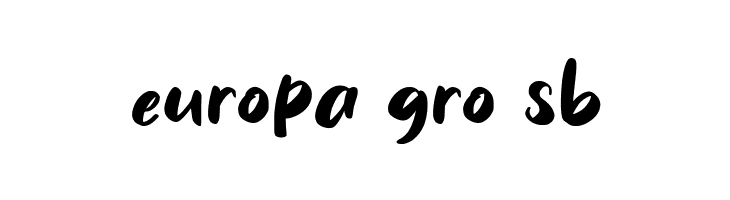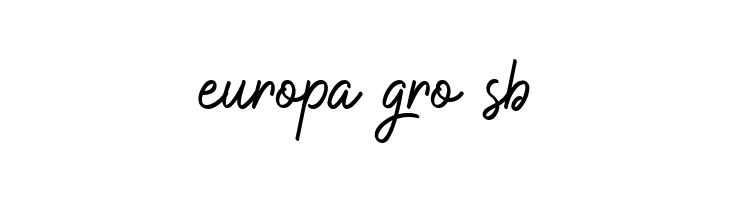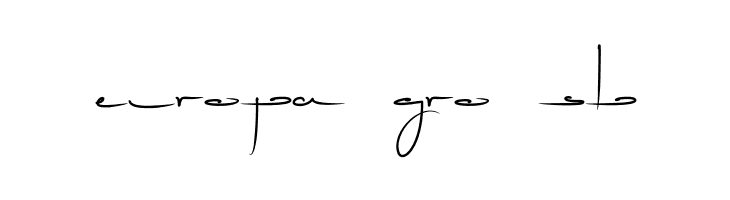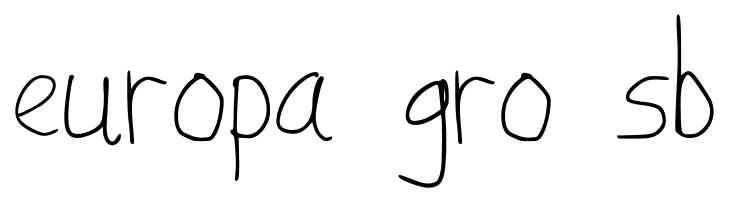
A graceful script font with fluid, connected strokes and a natural handwriting style.
A playful, bold handwritten font with a whimsical charm.
A smooth, flowing script font with a natural handwriting style.
A fluid, cursive script font with a natural handwriting style.
A whimsical, handwritten font with elegant, flowing lines.
An elegant, flowing script font with a cursive handwriting style.
A casual, handwritten-style font with thin, irregular strokes.
An elegant and flowing script font with ornate uppercase and smooth lowercase letters.
A playful, whimsical font with hand-drawn qualities and varying stroke thickness.
A dynamic and elegant script font with fluid, cursive strokes.